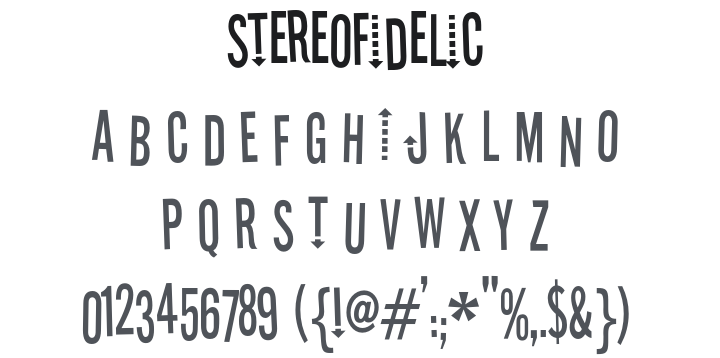
Stereofidelic Font
About Stereofidelic
Stereofidelic is a tight, funky condensed headline typeface inspired by 1960s jazz and lounge record sleeve lettering — bold, narrow letterforms adorned with cockamamie little arrows and directional flourishes that give every word a swinging, retro-cool personality. OpenType apps automatically shuffle letter variants for a naturally random, hand-set feel. Perfect for jazz-themed posters, retro branding, music editorial, cocktail bar signage, and any headline needing effortless 60s groove.